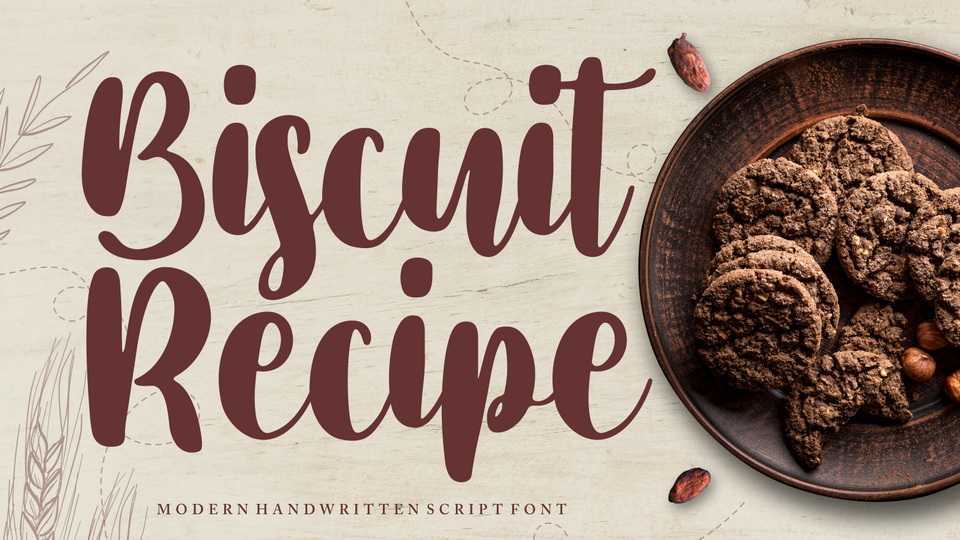
Download Biscuit Recipe font, a playful script inspired by modern handwriting. Biscuit Recipe font is perfect for creating modern and chic designs such as logos, packaging, editorials and more.